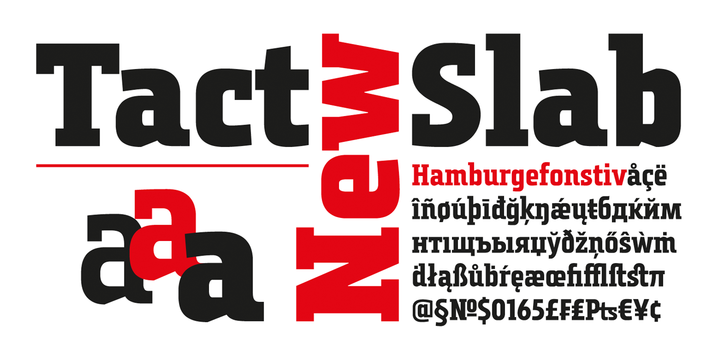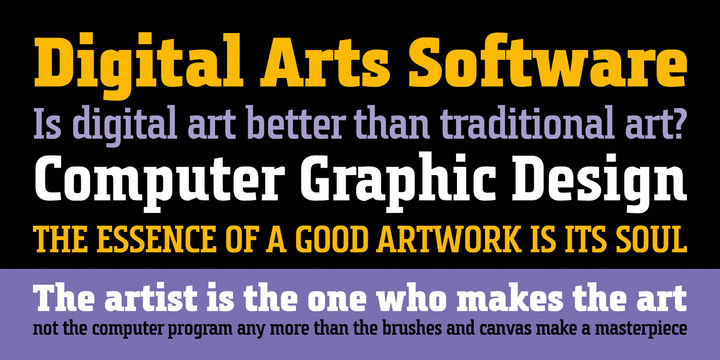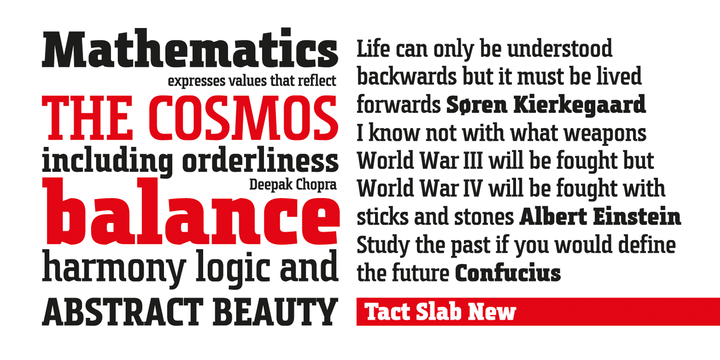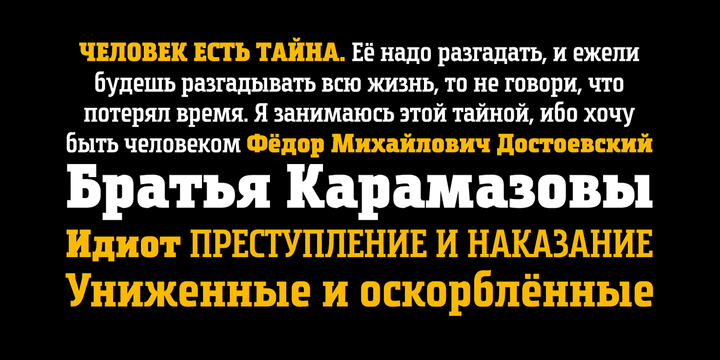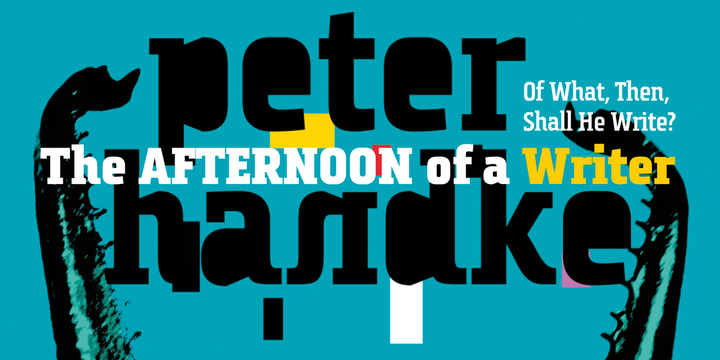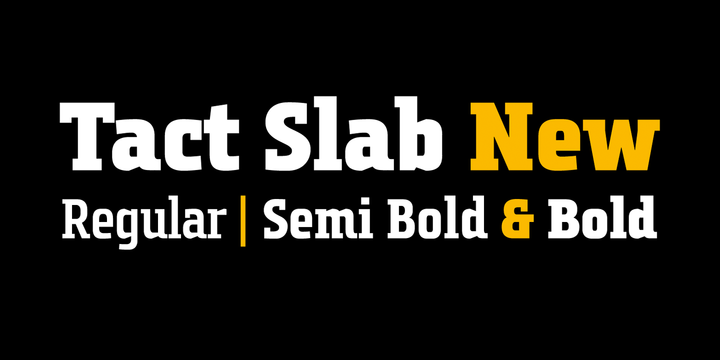
Tact Slab New Font Family
Tact Slab New is geometrically a slab serif font, with 3 weights, condensed looks glyphs, with an alternative glyph set to improve its use in different graphic contexts. Tact Slab New is compatible with the sans serif font Tact New. It is suitable for use in the fields of science, art, architecture, urban planning, techniques, electronics, advertising, posters, corporate designs, futuristic themes, sport, film, computers, phones, video games, publishing… Contains all the Latin and Cyrillic glyphs.